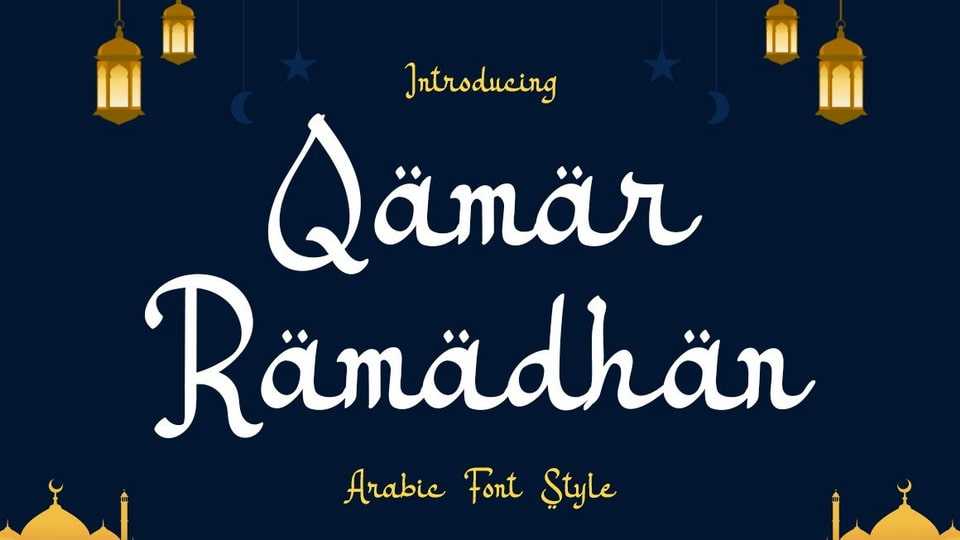
Download Qamar Ramadhan font, a typeface embodies the essence of Arabic calligraphy with a touch of Islamic artistry, perfectly capturing the spirit of Ramadan.